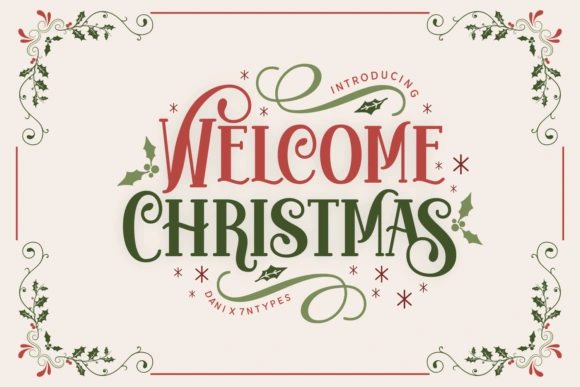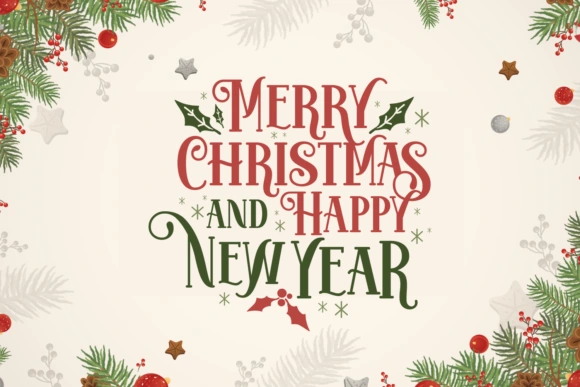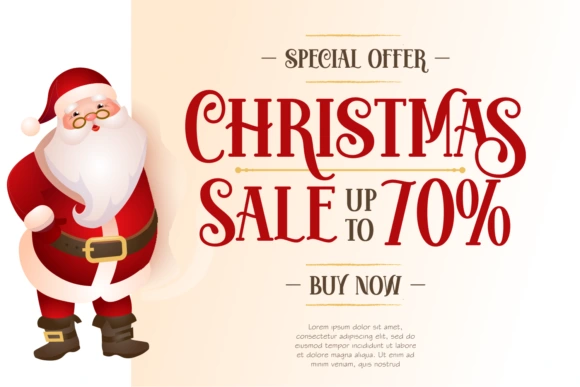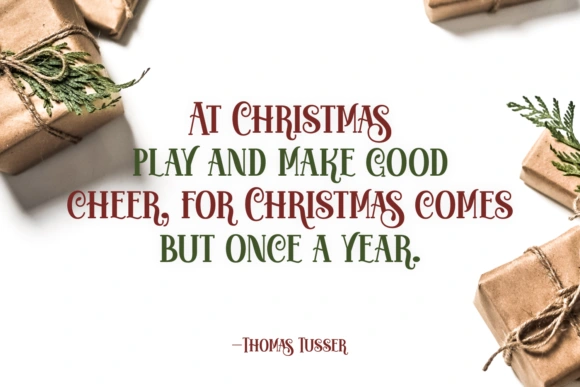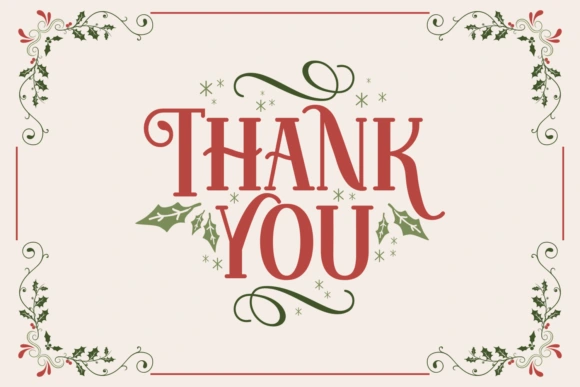
About Welcome Christmas Font
What Is the Welcome Christmas Font?
Welcome Christmas Font is a joyful display font built for holiday-themed projects. It gives off a festive, playful vibe that instantly sets the right tone. Every character and glyph has charm without feeling too cartoonish. It strikes a great balance, making it perfect for both digital and print.
The font was created by dani7ntypes, a designer known for crafting seasonal and decorative typefaces. Their work often appears on Creative Fabrica, a site full of creative design products. While the style feels lighthearted, the structure is solid. You can tell the font was built with usability in mind.
Features of the Welcome Christmas Font
This font is fun, but it’s also functional. First, it’s a display font, which means it’s meant to stand out. Think big headlines, social media graphics, holiday cards, and packaging.
The design is playful without being too loud. It’s easy to read, even at smaller sizes. That makes it flexible for digital and printed projects. You can use it on desktop, and it works well with webfonts too.
The font brings out the holiday mood, whether you’re crafting a seasonal campaign or a festive sticker. You can combine it with other Christmas fonts, but honestly, this one can carry a design on its own. It fits nicely in both modern and vintage layouts.
Welcome Christmas Font works best for festive designs. I’ve used it for branding, but it’s also perfect for greeting cards, packaging, party invites, banners, and seasonal campaigns. It pairs well with cozy colors and warm imagery.
You can use it for holiday sales promotions, social media graphics, or even printables like gift tags and wrapping paper. The letter shapes are friendly and feel right at home in cheerful themes. It’s made for those “Merry Christmas” moments that need visual punch.
Holiday-themed products like mugs, shirts, and cards look great using this font. You don’t need to be a pro to use it either. The design speaks for itself and brings a polished, happy tone with minimal effort.
Designers working in seasonal markets or holiday campaigns will find it especially useful. Whether you’re freelancing or working in a team, this font helps ideas shine fast.